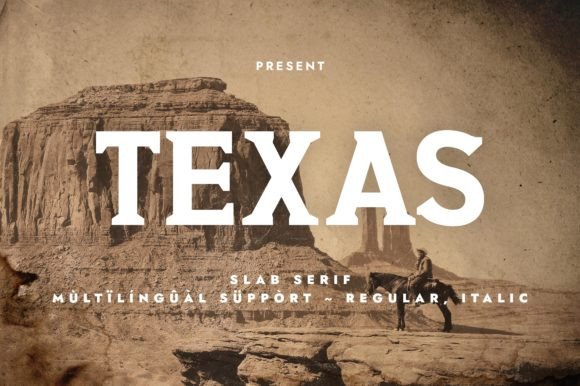
Are you tired of using the same old fonts in your designs? If so, then you're in luck! Introducing Texas Font, the best font for magazine design. Created by Minimalistartstudio, this American slab serif typeface brings the wild west cowboy American culture right to your fingertips.
With Texas Font, you can easily create vintage and retro themes for your designs without any hassle. It's perfect for book covers, magazines, comic magazines, posters, and even cartoon production.
But that's not all. Texas Font is more than just a font. It's a statement. It's a powerful and emotional tool that can help you tell your story and capture the attention of your audience.
So why choose Texas Font? Because it's not just a font, it's an experience. It's the perfect balance between modern design and old western charm. It's a font that can take your design to the next level and leave a lasting impression on your audience.
In short, Texas Font is the perfect choice for anyone looking to add a touch of wild west cowboy American culture to their designs. Download it today and see for yourself why it's the best font for magazine design.